Font ligatures are a type feature where two or more glyphs are joined together. The resulting glyph, the ligature, replaces the matched glyphs. In this post, we will explore this type feature and explain its pros and cons while showing how to enable the feature. Some developers find ligatures useful in their workflow as they can improve the legibility of their code, so it is worth it to understand what the feature is about.
When are ligatures used?
If you look closely, you might notice that many fonts do something special with combinations of fi and ft. You might notice how letters are subtly joined together. Historically speaking, early typesetters would model the replacement letter as a single block for their printing machine, as mentioned by I love typography. Another interesting tidbit is that ampersand (&) started as the combination of E and t and was a ligature before being formalized as an official letter. Similar examples can be found from Nordic letters of Æ,Œ, and the German letter ß, which started as ligatures to improve legibility. The example below showcases several common ligatures from the MonoLisa typeface.
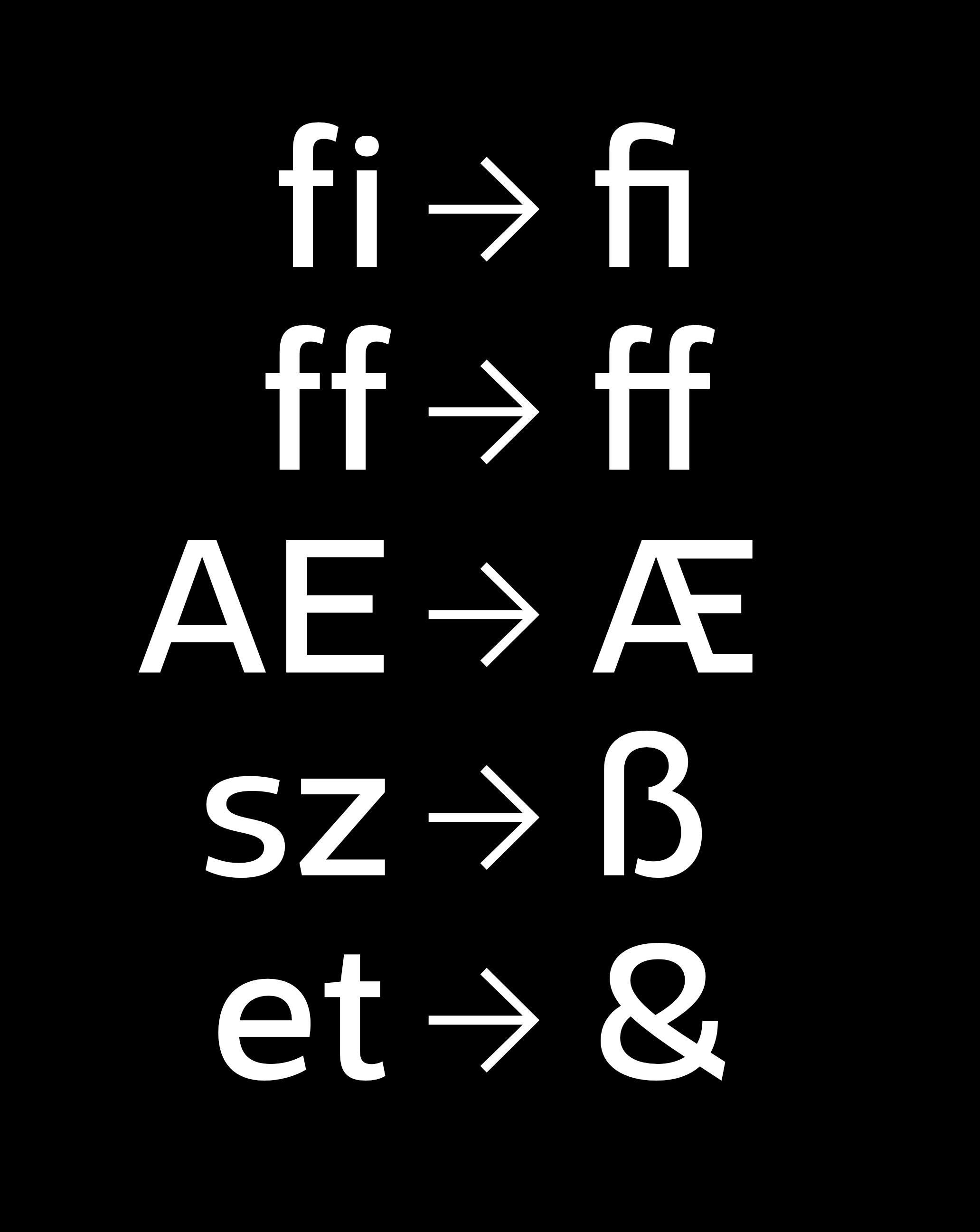
How are ligatures visible in the OpenType font specification?
If you look at the OpenType font specification carefully, you can notice it contains liga and dlig features. Both groups are meant for ligatures, and liga contains combinations that should be used in normal conditions, while dlig has been reserved for discretionary usage, and it is up to the user’s preference per the definition.
MonoLisa typeface includes both, and the idea is that liga contains more radical replacements while dlig has been reserved for spacing-related tweaks, making it more subtle. It is possible that typefaces interpret the rules for your convenience like this, and it is a good idea to check what OpenType features they offer and how if you want to get the most out of the typefaces you use.
What are coding ligatures?
Now that you understand what ligatures are and why they are used, it is good to consider how they can be used for programming. Several coding fonts contain these combinations as ligatures to improve the legibility of common combinations, such as !=. In other words, after replacement, the combination would stand out on its own, and often, you end up with a more mathematical look for your code that some programmers prefer. Given it is not a look all programmers like, it is possible to toggle the feature using liga and dlig OpenType flags, and even if a typeface contains ligatures, they aren’t enabled by default. Consider the figure below to get a better idea of what kind of coding ligatures are possible.
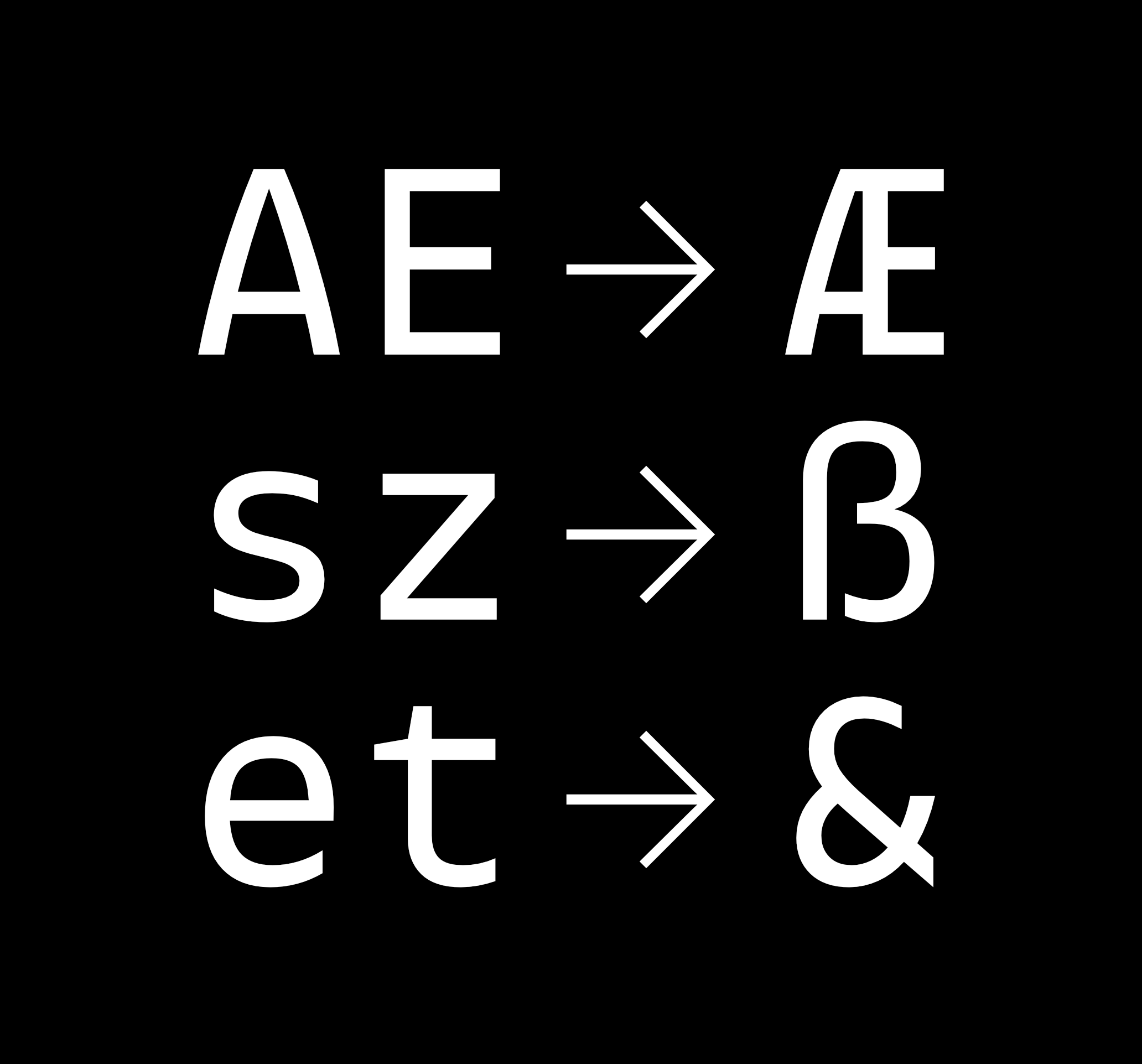
From the type designer’s point of view, providing ligatures for a coding font comes with some challenges. There is limited space to use since coding fonts are monospaced by definition and, therefore, take a fixed width. The key issue is to get the spacing and proportion right so that the resulting glyphs fit their context well.
Conclusion
Ligatures are a type feature that many typefaces contain to improve the legibility of certain letter combinations. Coding fonts provide ligatures specific to the task. In coding fonts, ligatures are an optional feature you can enable if you prefer the more math kind of look.